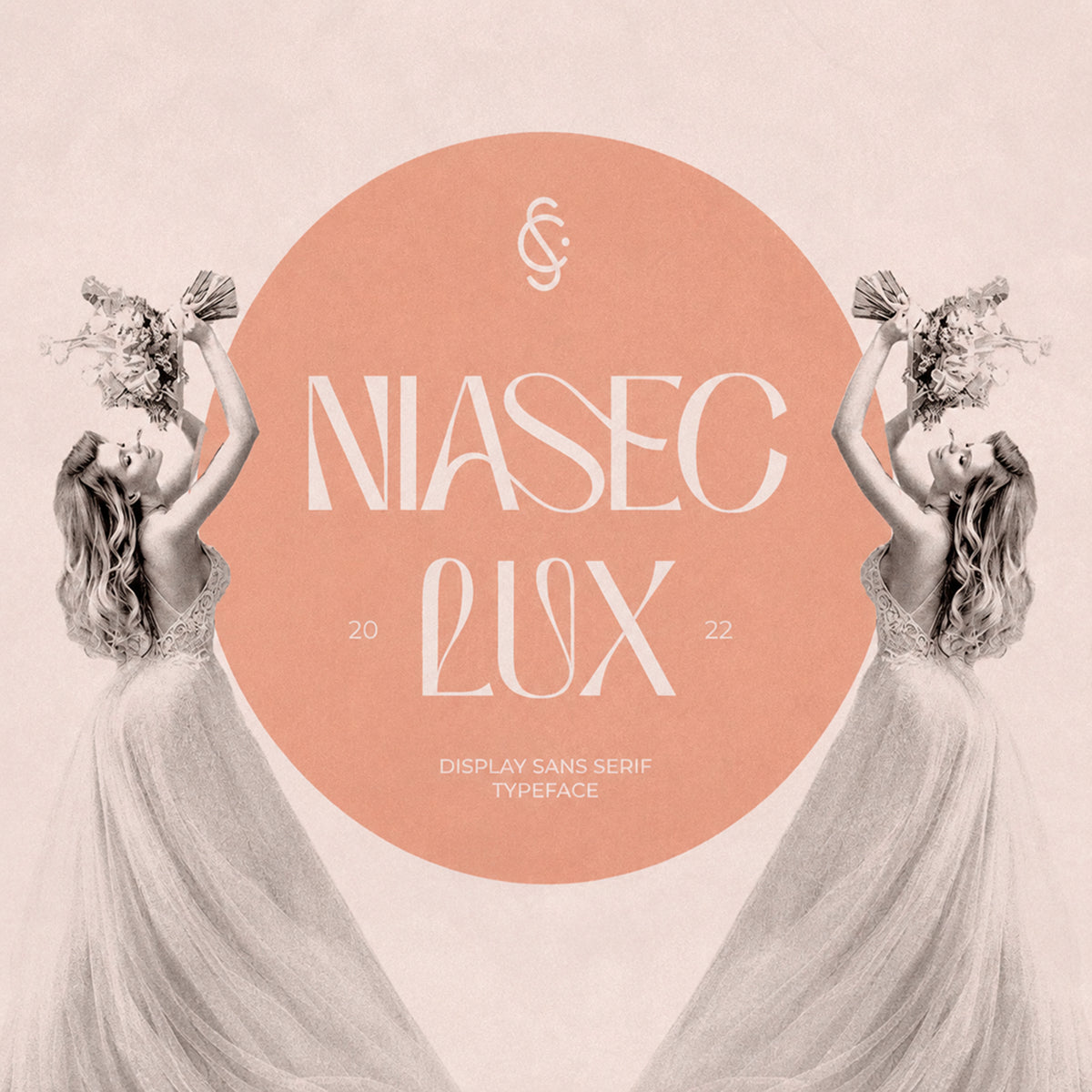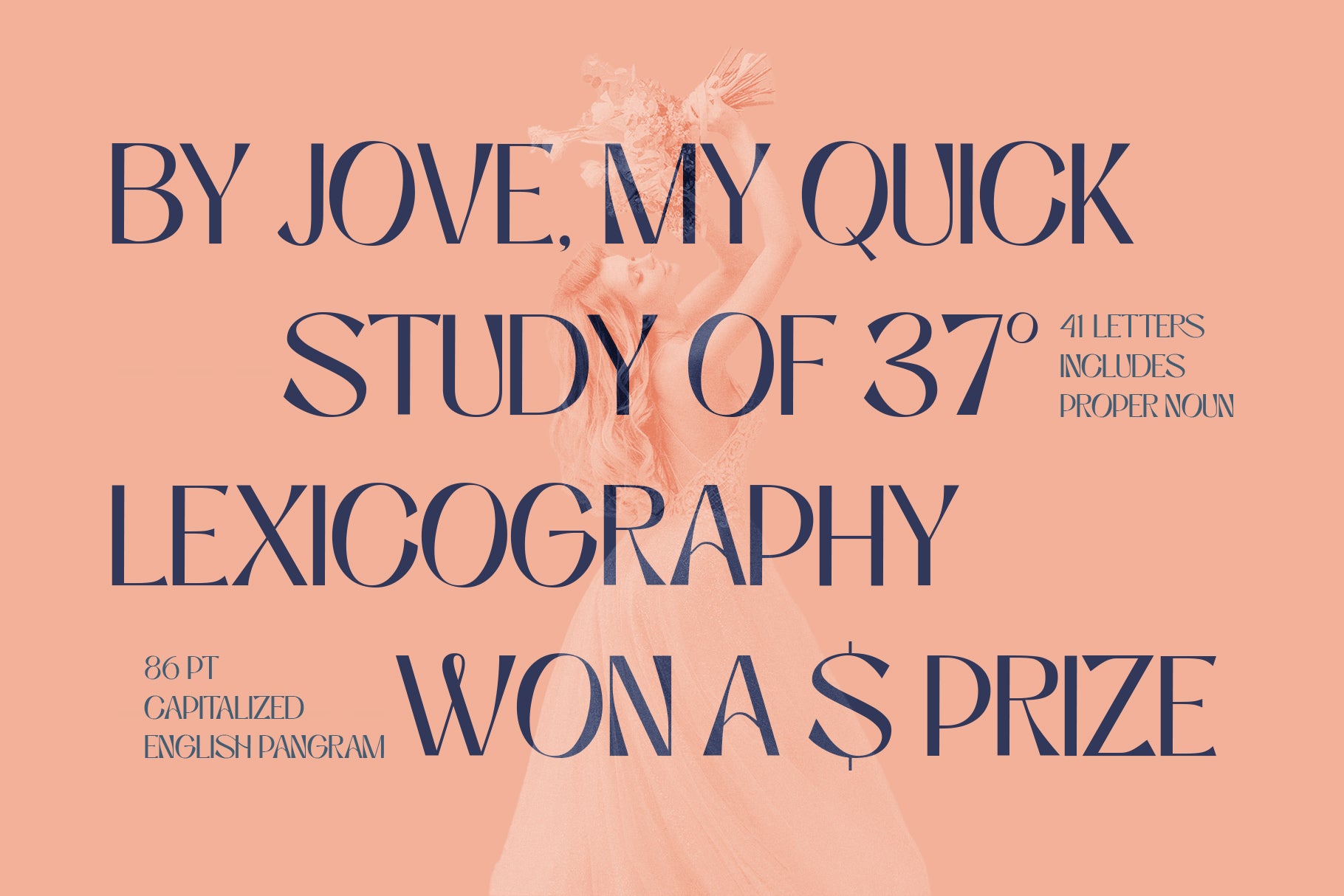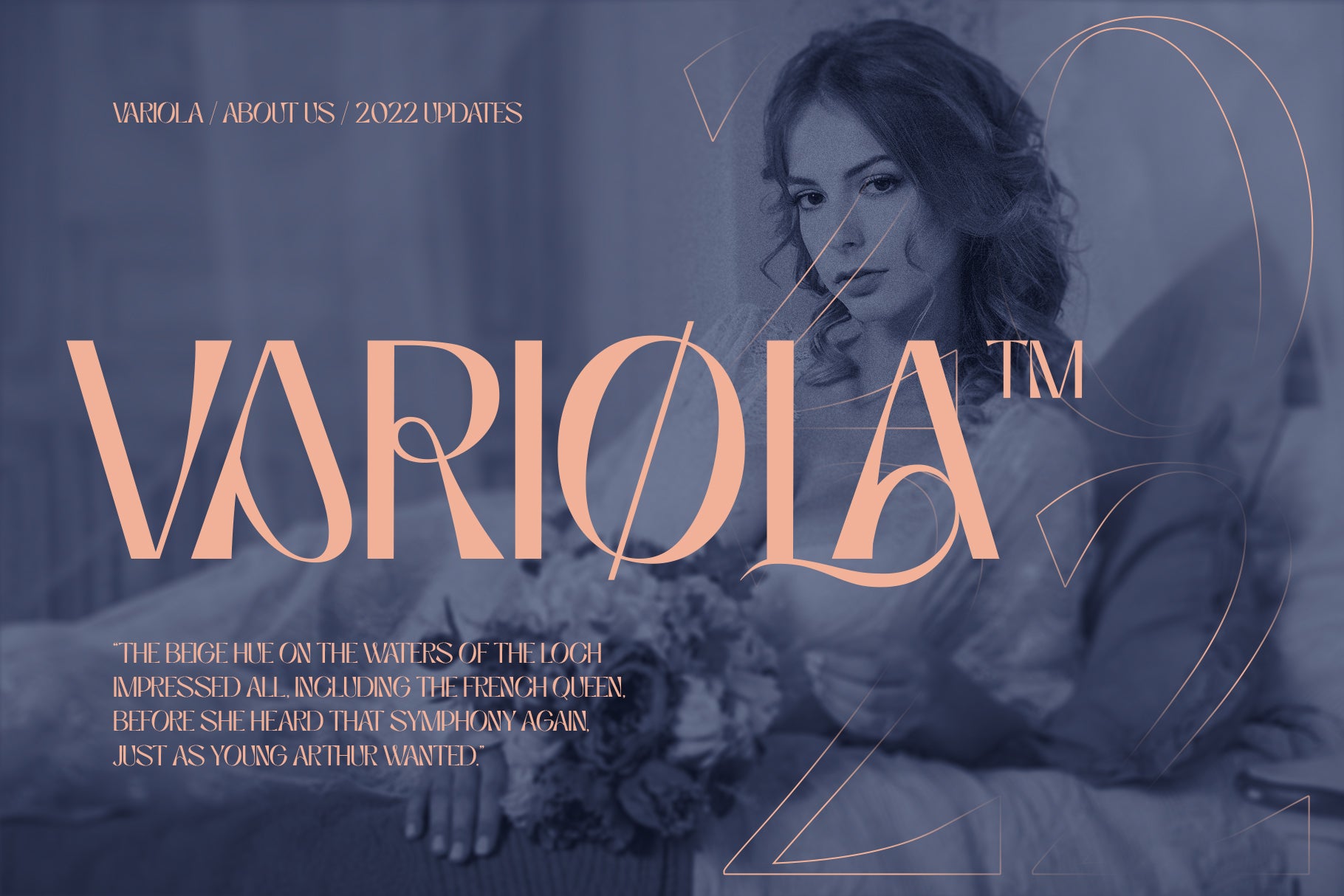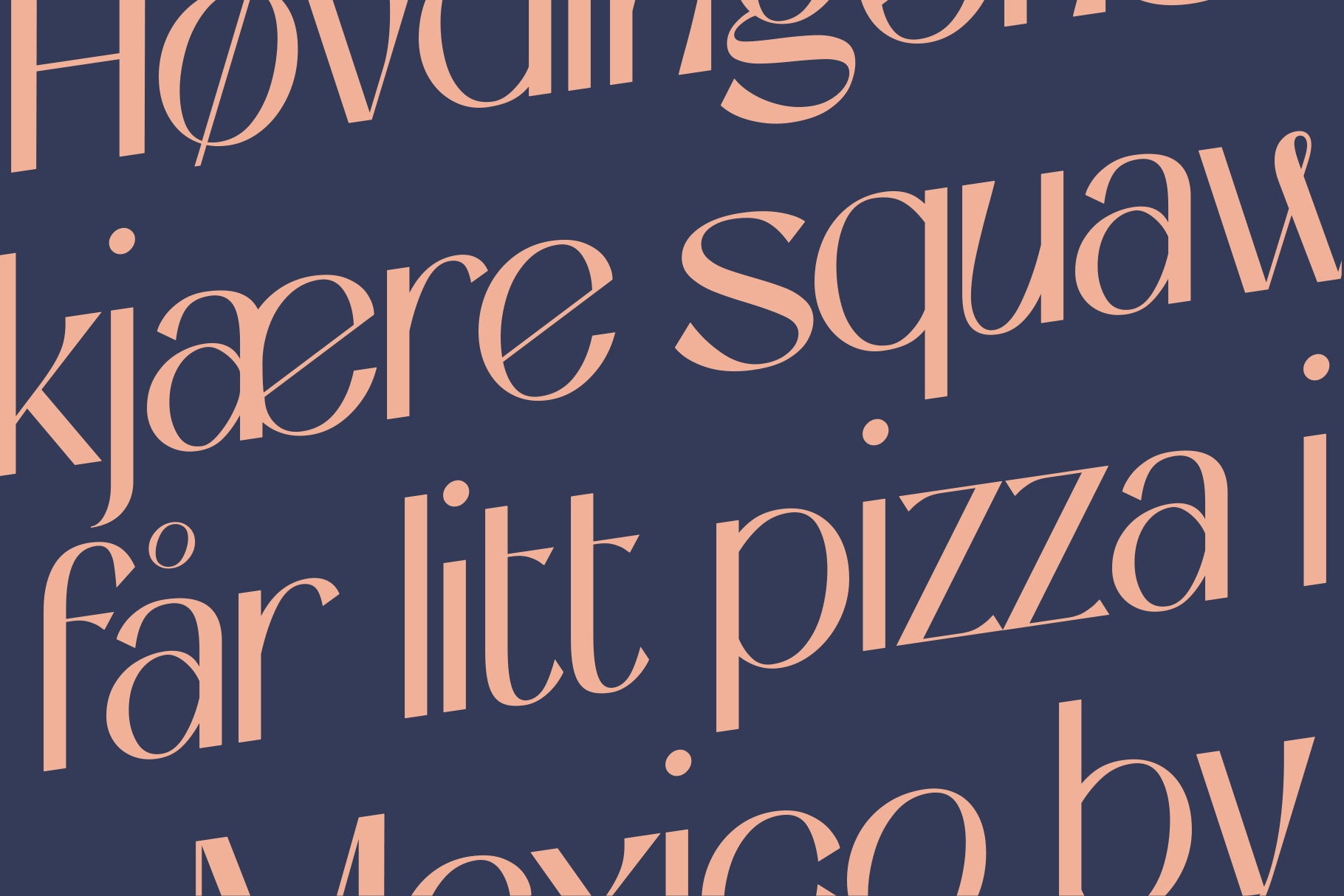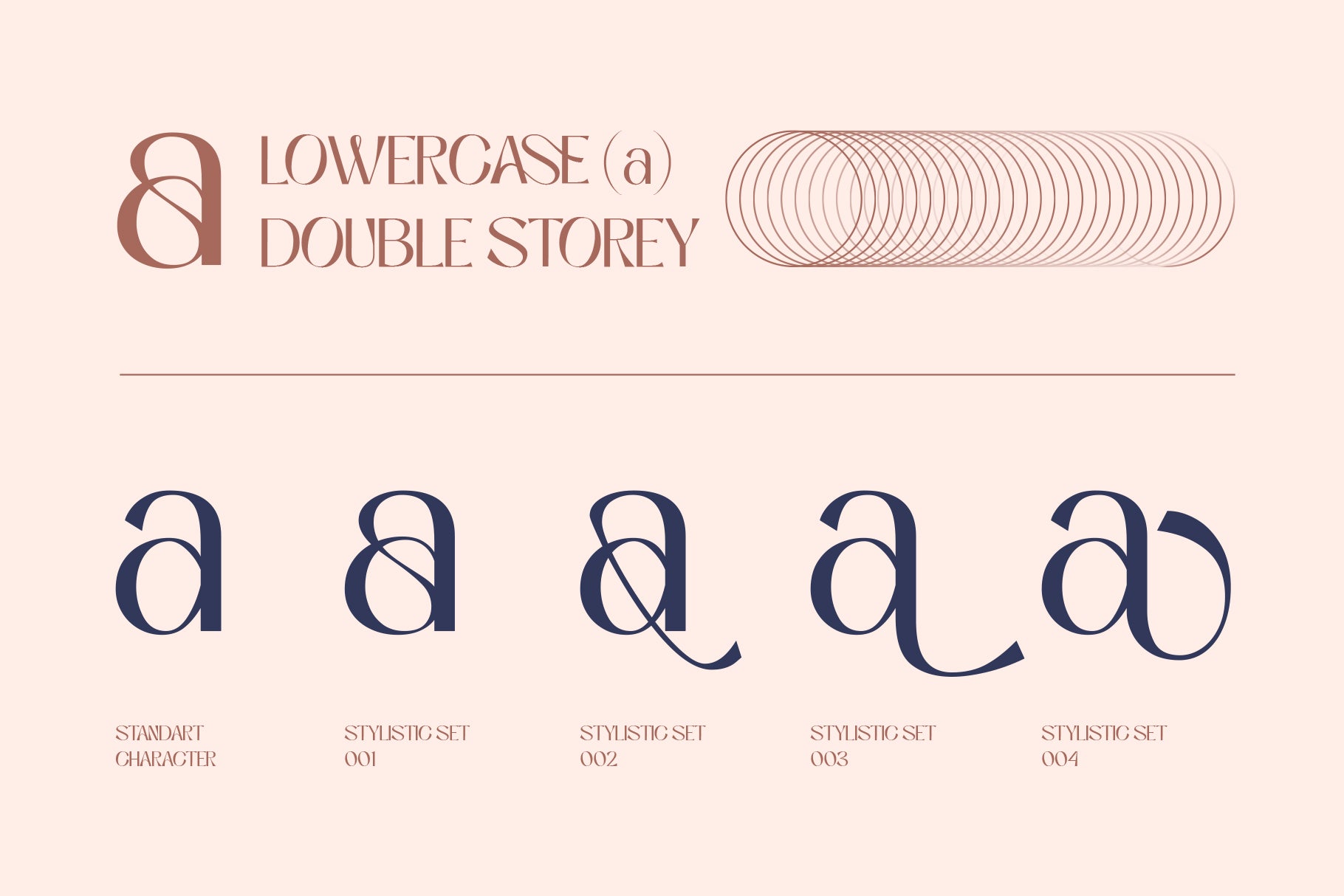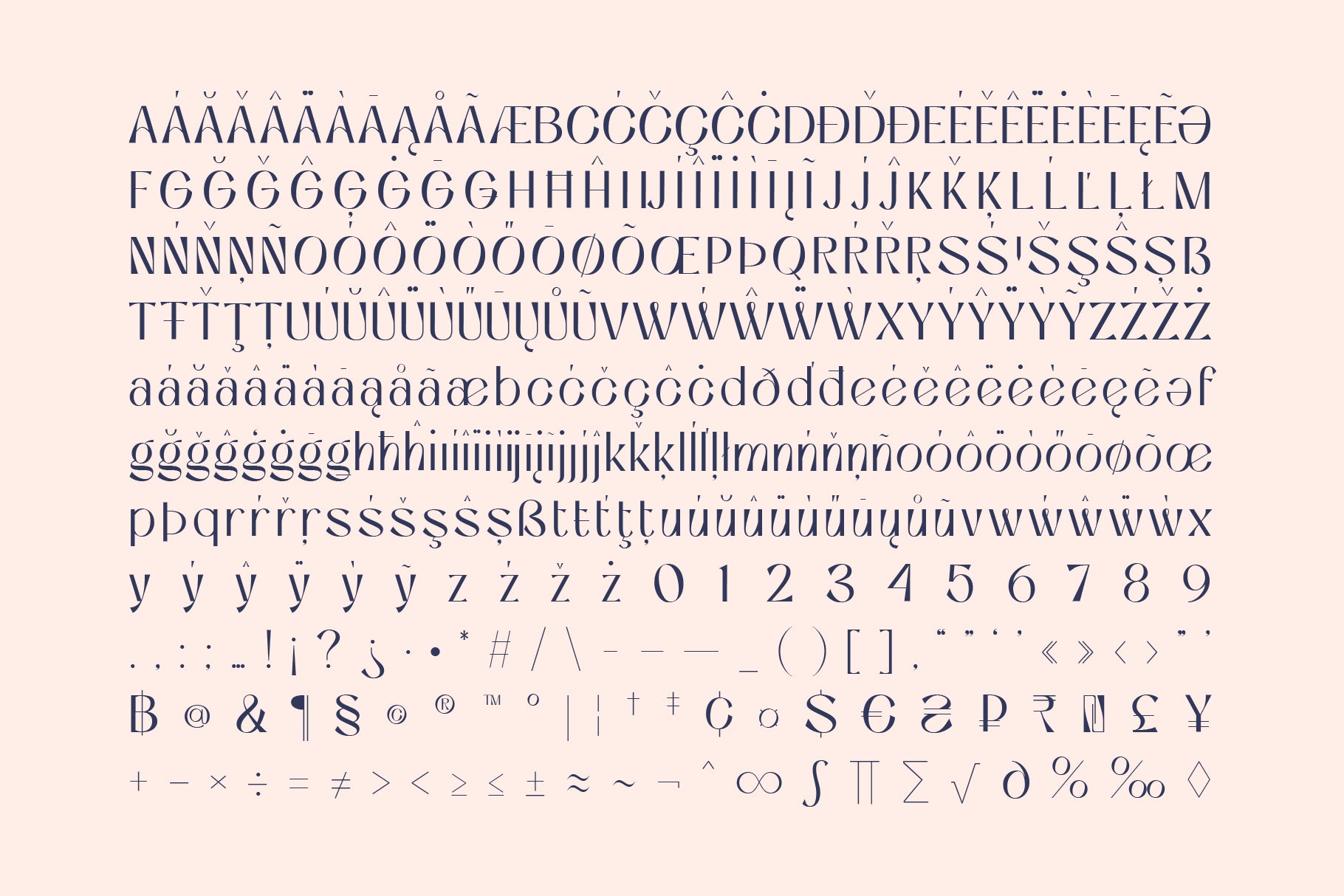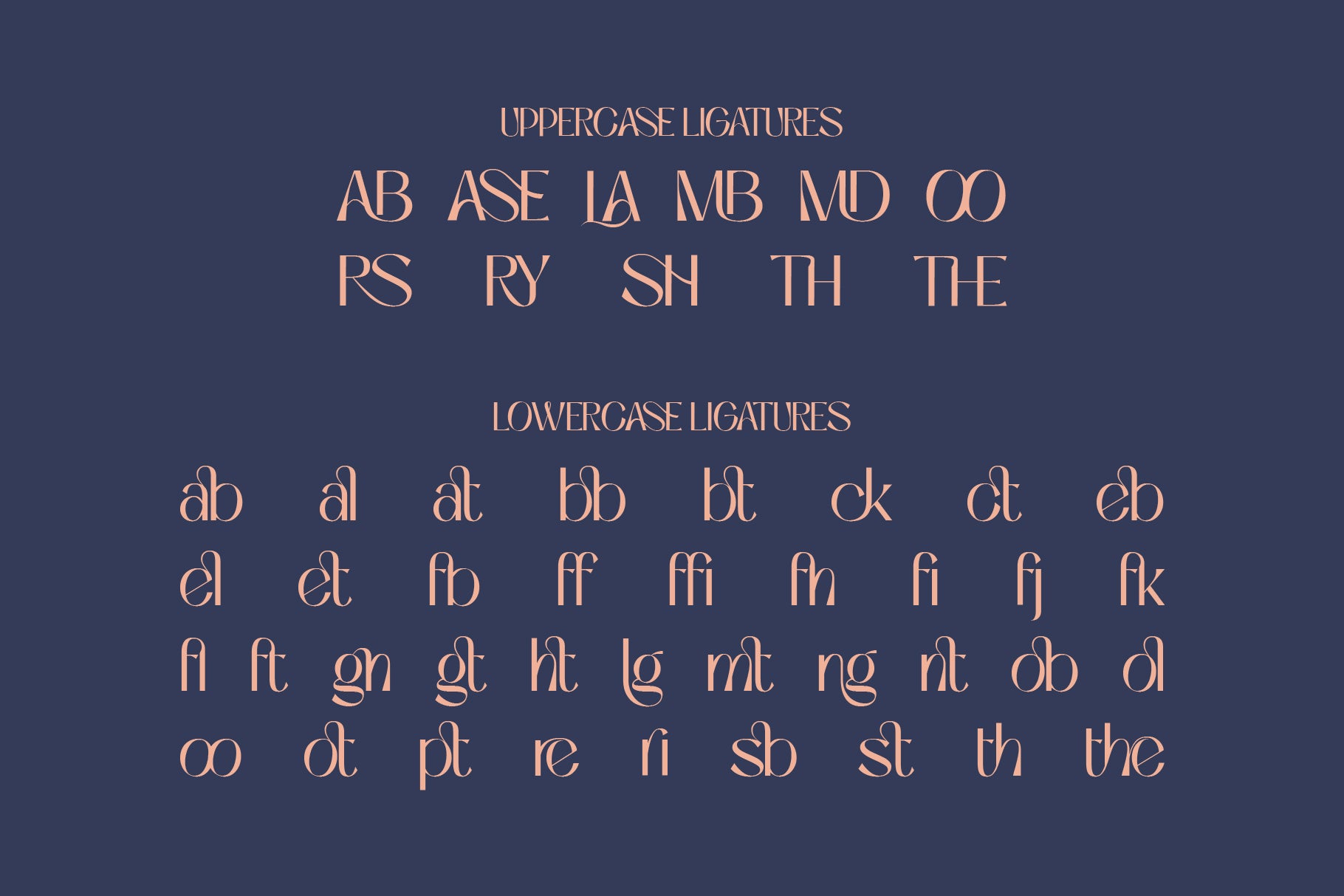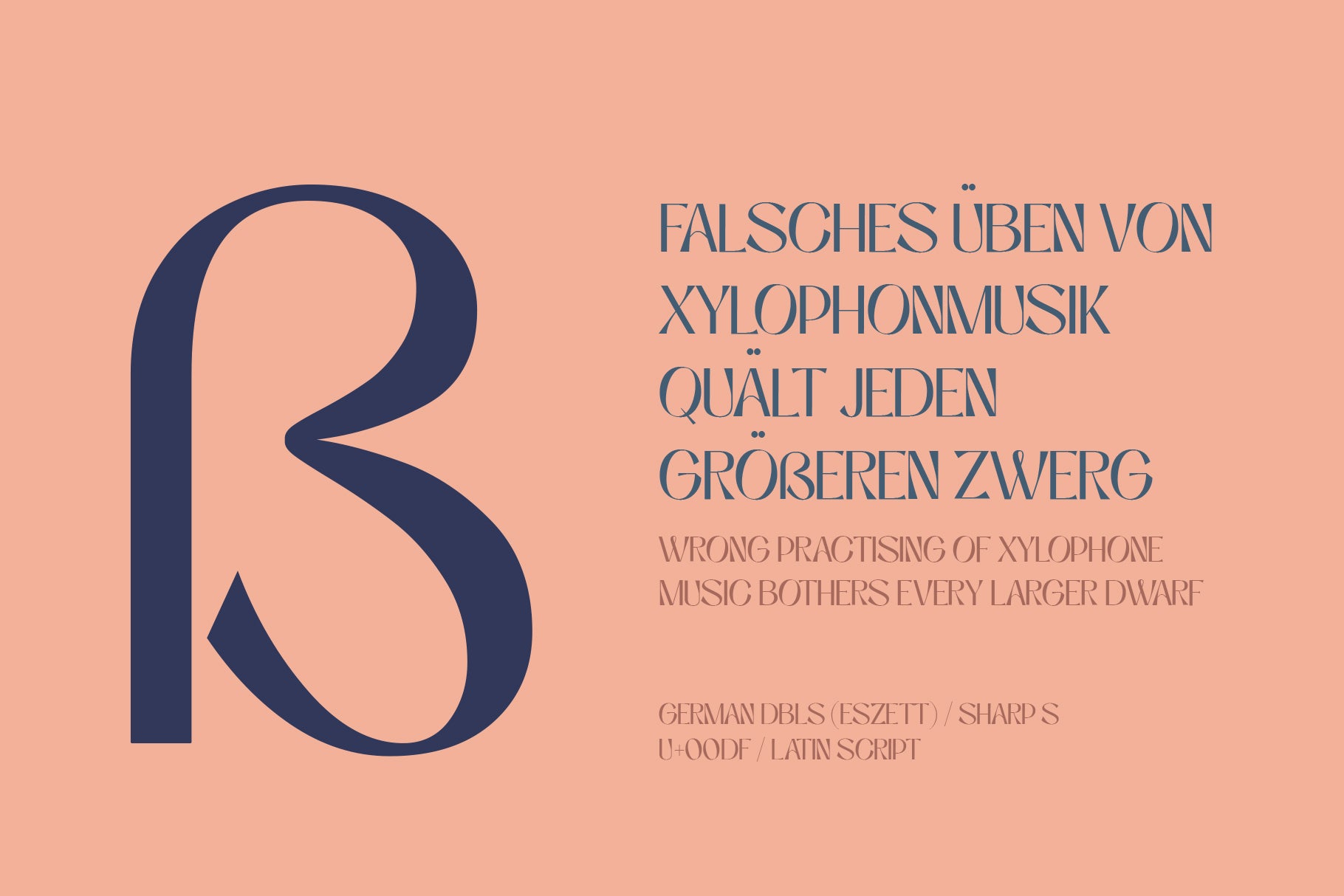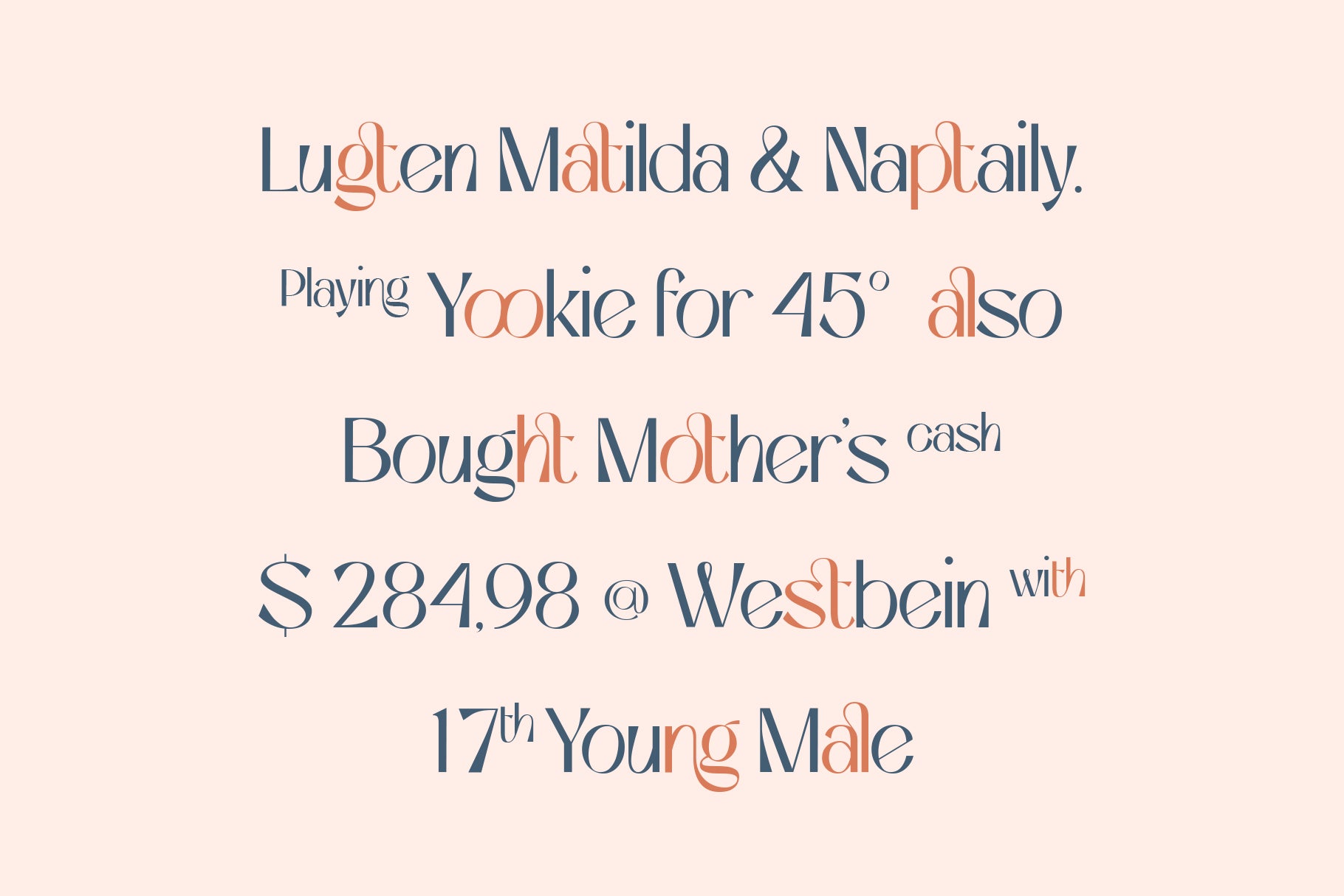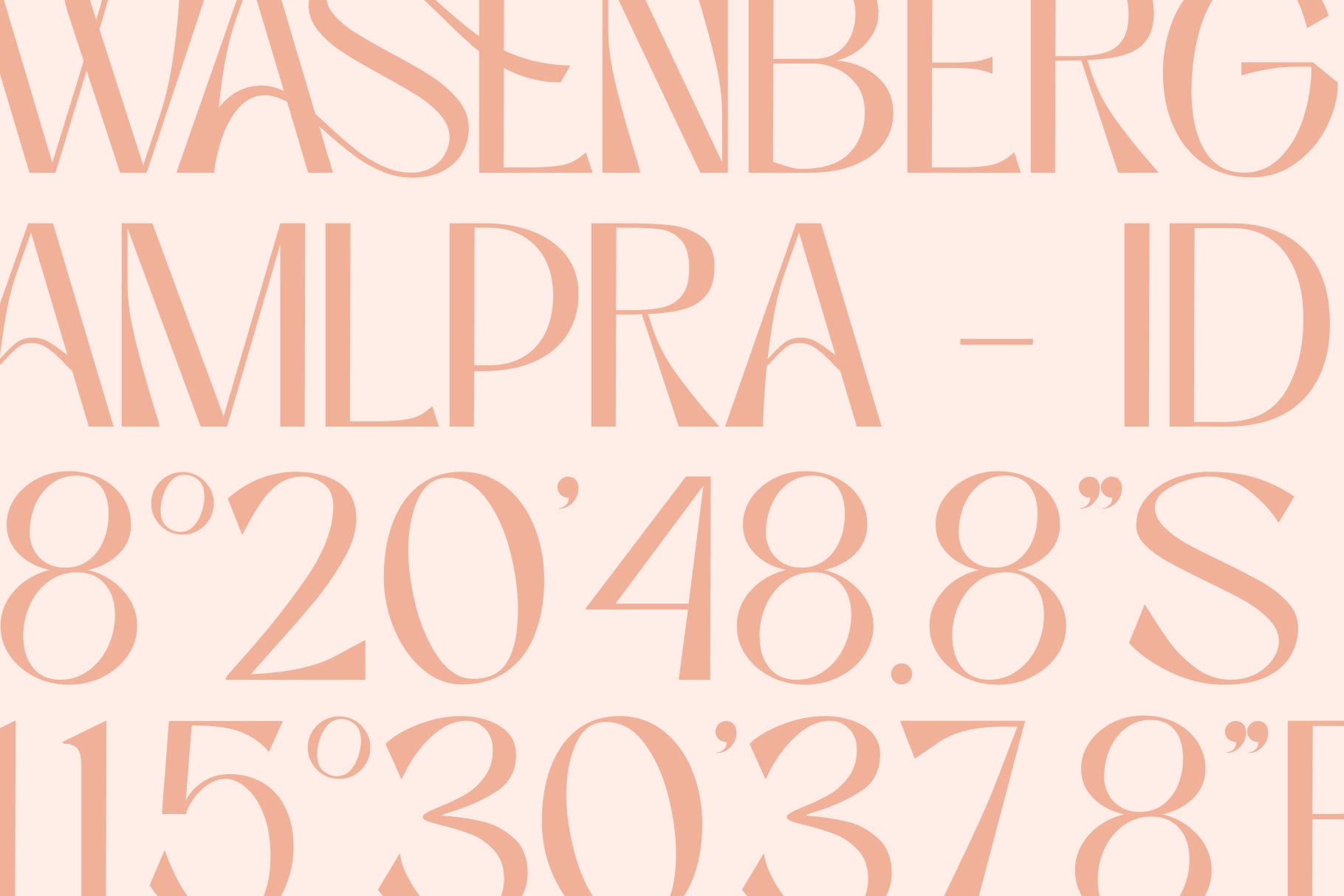
Niasec Lux Elegant Display Font
Introducing Niasec Lux, your gateway to world-class typography in a striking tan hue. This display font, enriched with the essence of Heart, Valentine, and Festive themes, stands out effortlessly, offering a Sans-serif style with captivating ligatures and experimental nuances. Niasec Lux is not just a font; it's an experience that transforms ordinary words into a symphony of beauty.
Niasec Lux holds its own in various contexts, bringing an eccentric twist to your website, packaging, logos, and Luxes branding endeavors. Picture it on your brewery logo, exuding luxury, or gracing your vogue editorial with its First Class appeal. Niasec Lux thrives in every setting, from the trendy streets of Memphis to the serene beauty of Santorini.
With its impressive features, Niasec Lux guarantees pure joy for designers and users alike. The soft curves add a delicate and contemporary look, while the ligatures provide a dangerously stylish yet perfectly legible feel. Immerse yourself in a font that captures the essence of better days, after-hours musings, and carefree creativity.
Niasec Lux is the nimbus epitome of originality, offering a fun style that resonates with the loving hues of oranges and the dreamy avenues of luxury. Its unique design, inspired by diverse cultures from Western to Korean, and even Chinese influences, gives it a global appeal.
Niasec Lux Display is complete with character set styles, ligature, and multi-language support. Then add to the proportions of numbers and symbols in harmony with the basic letters, giving an earlier impression of the work you are about to create.
Niasec Lux is a display font featuring a striking tan hue and a Sans-serif style, complete with captivating ligatures and a contemporary design. It offers multi-language support, a comprehensive character set, and is suitable for various branding and design applications.